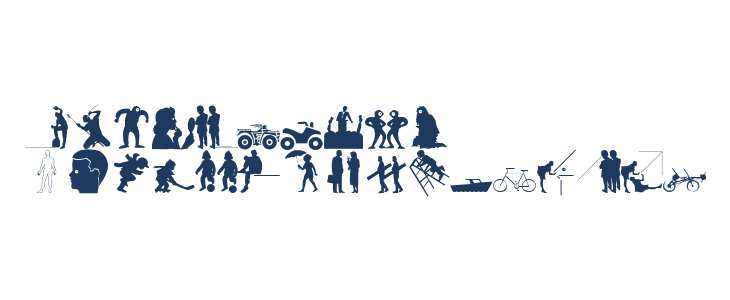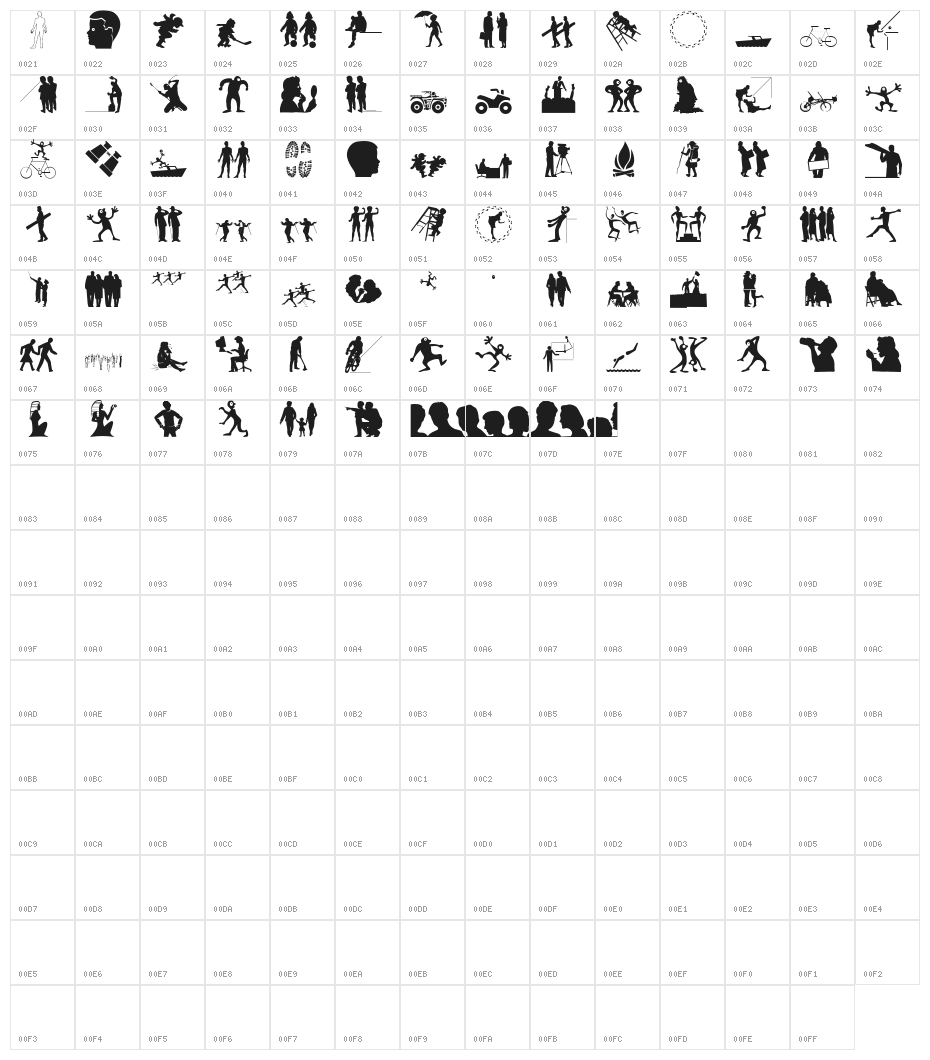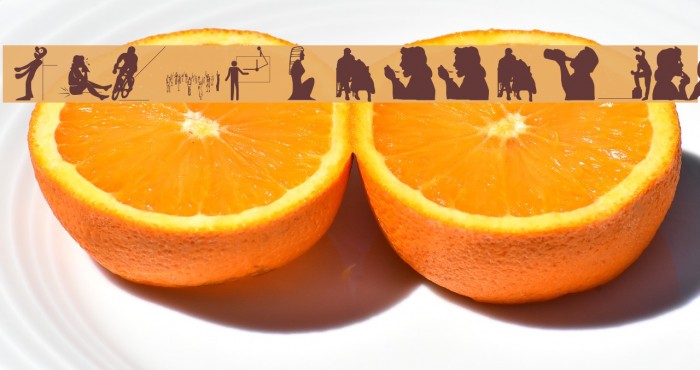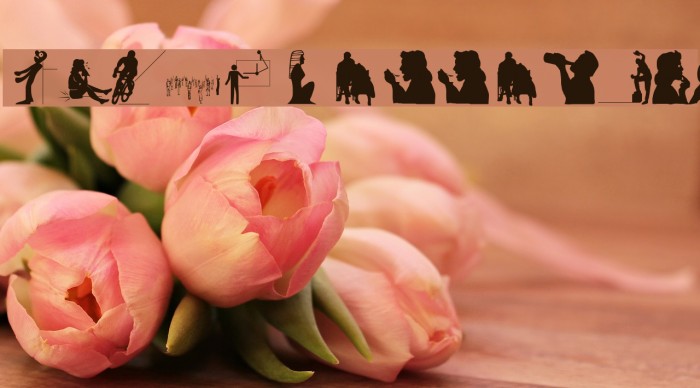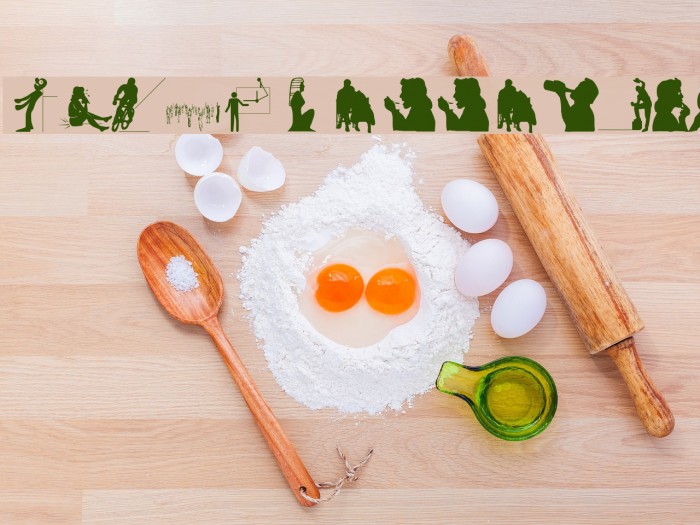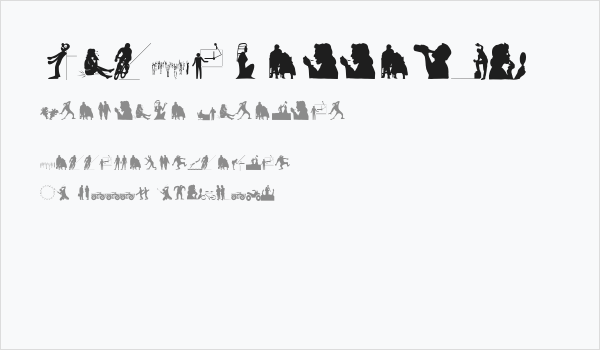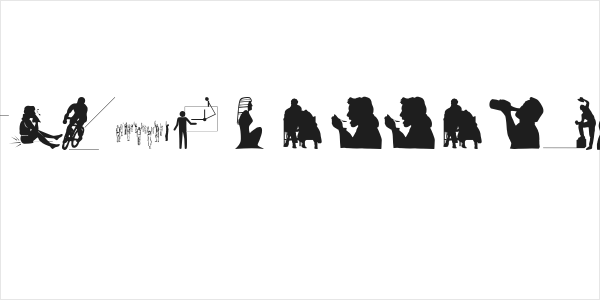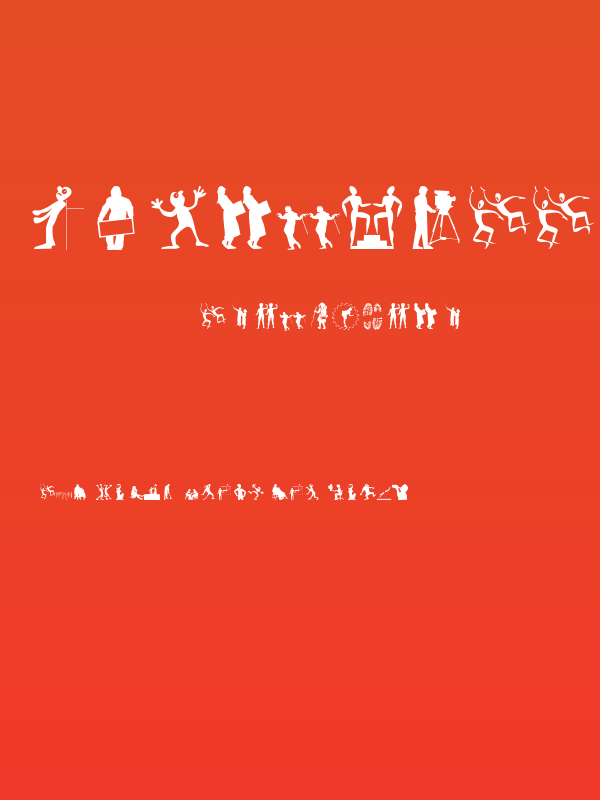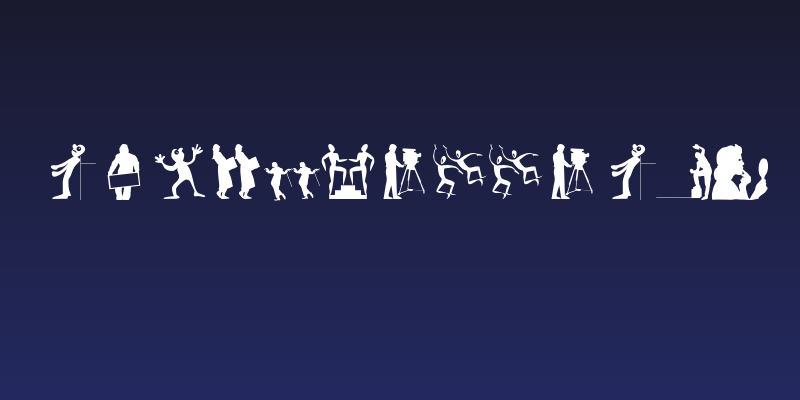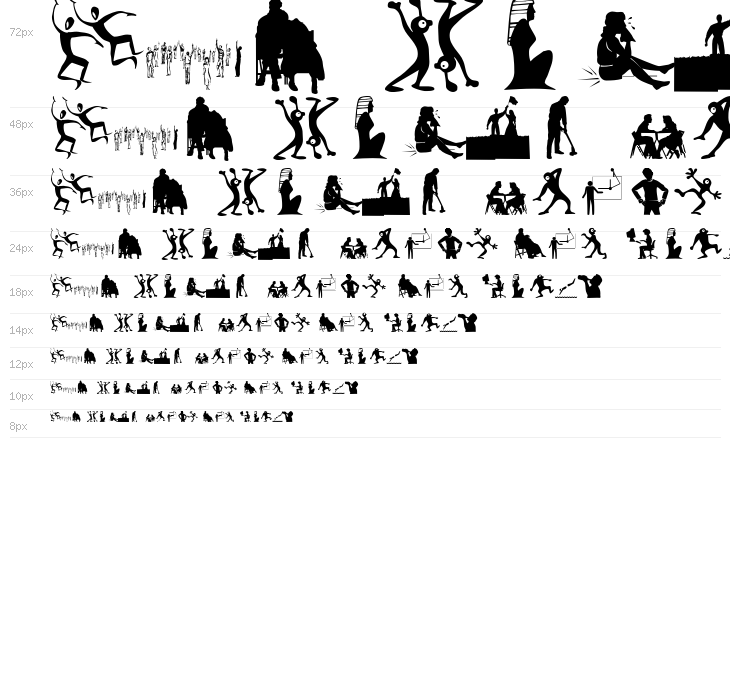
Silhouettes03 Font
Silhouettes03 Description
A collection of black silhouette icons depicting various human activities, objects, and scenes, with each character representing a unique pictogram rather than a traditional alphabet or numeral. The style is bold and highly simplified, focusing on recognizable shapes and actions.
| Overall Style | Decorative, Modern, Pictographic |
| Use Case | Icons, Infographics, Visual aids, Posters |
| Proposed Projects | Infographics, signage, educational materials, presentations, visual storytelling, icon sets. |